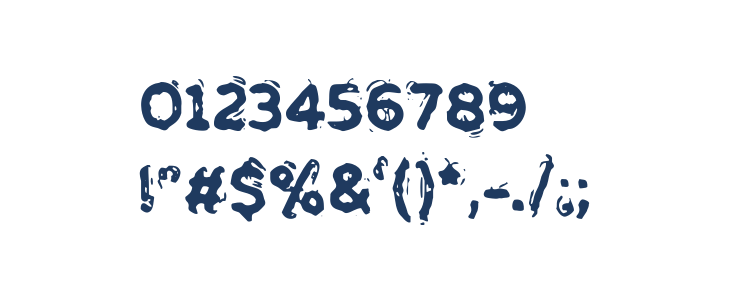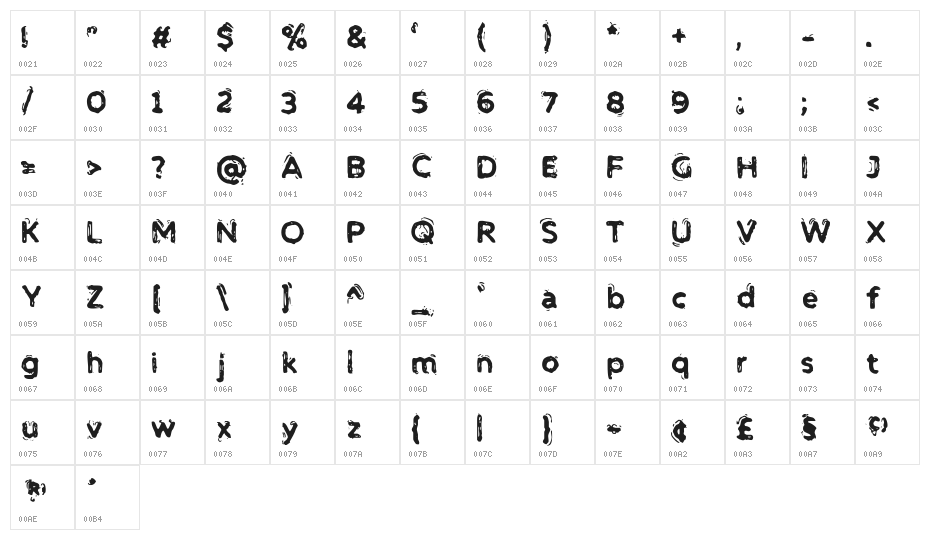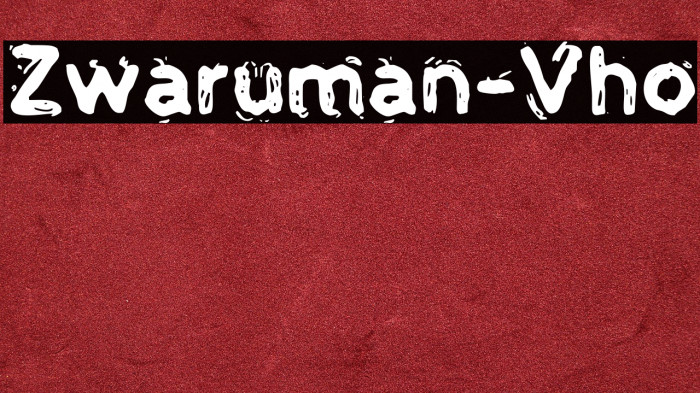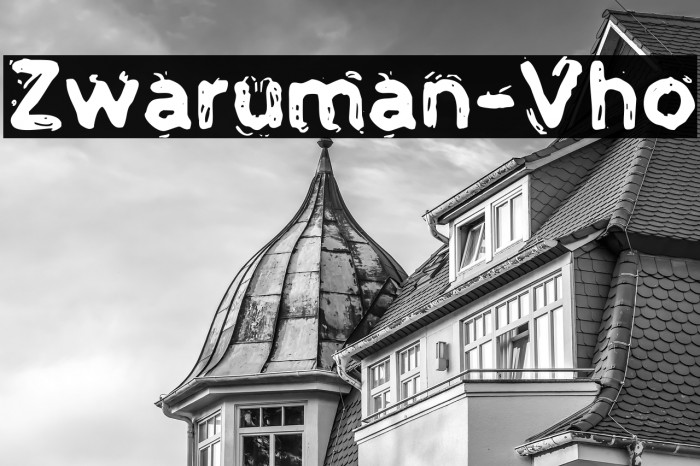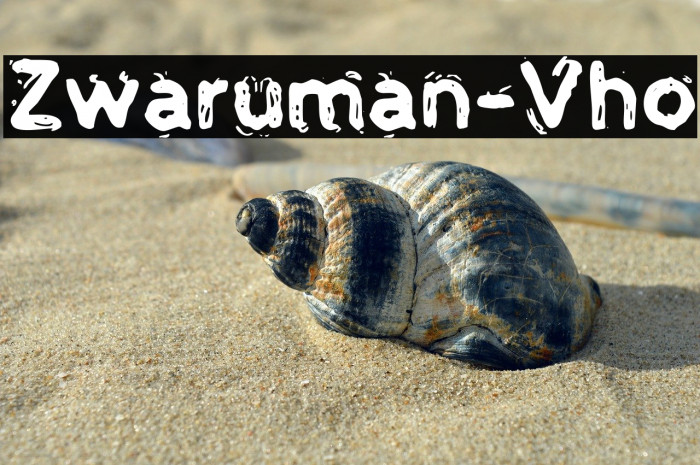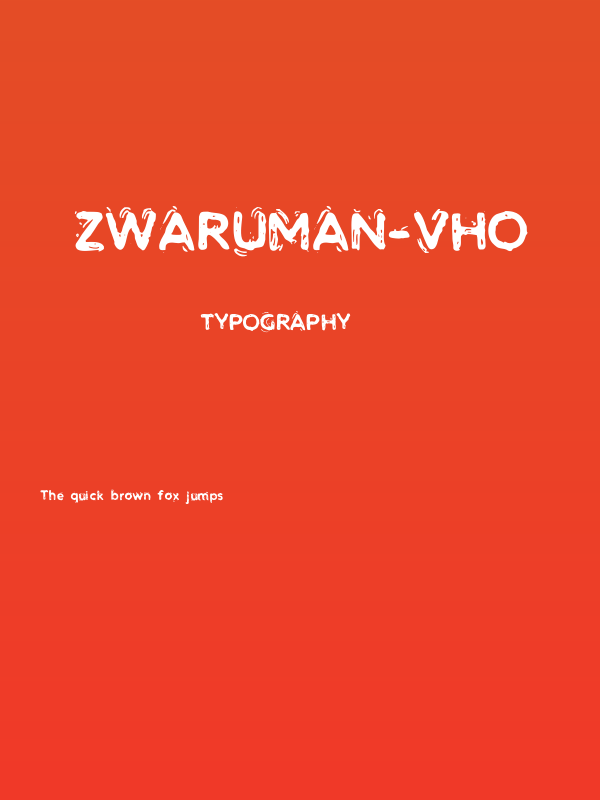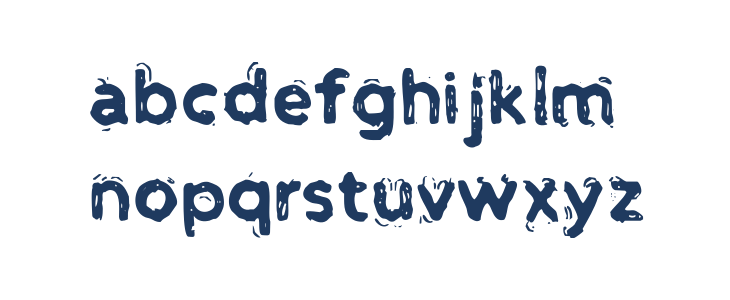
Zwaruman-Vho Font
Zwaruman-Vho Description
This font features a bold and distressed style, with each character appearing as if it has been weathered or eroded over time. The edges are irregular and rough, giving it a grunge or urban aesthetic. The uppercase and lowercase letters maintain a consistent thickness, while the numbers and special characters follow the same distressed pattern. This font is highly decorative, making it stand out in designs that require a bold statement. The unique texture adds a dynamic and edgy feel, suitable for projects that aim to capture attention and convey a sense of ruggedness or authenticity.
| Overall Style | Grunge, Urban |
| Proposed Projects | Ideal for posters, album covers, streetwear branding, and any design needing an edgy, urban look. |